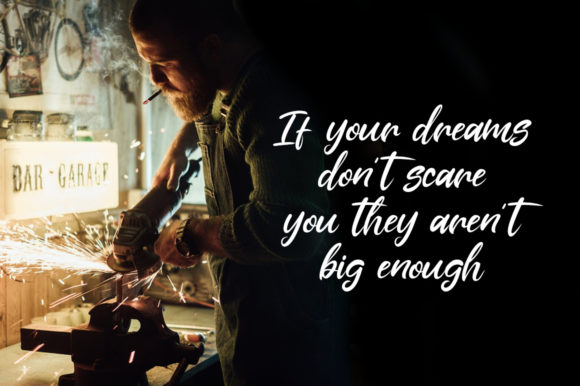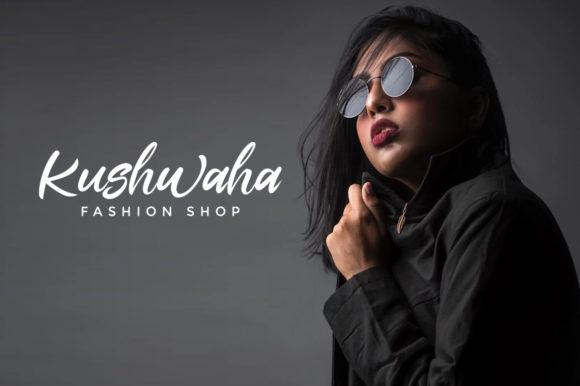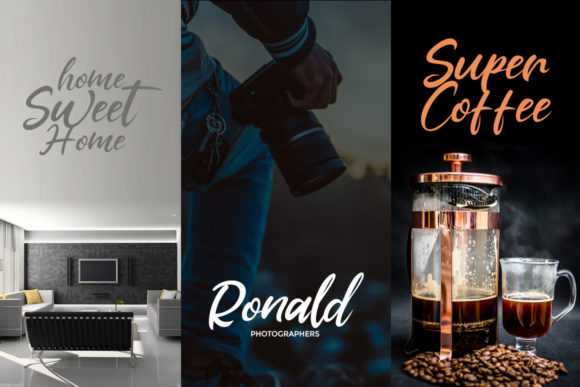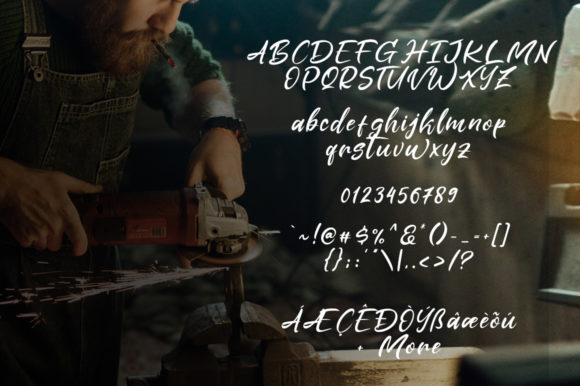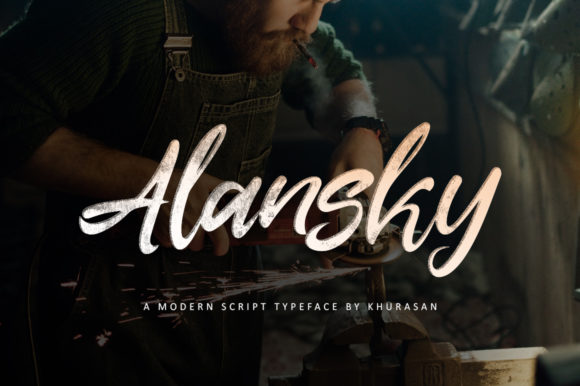
Introducing Alansky Font: A Modern Twist on Classic Calligraphy
Are you tired of using the same old fonts in your design projects? Look no further than Alansky Font, a modern homage to classic calligraphy that’s sure to add a unique and powerful touch to your work. With its authentic vibe and stunning visuals, Alansky Font is the perfect choice for designers and crafters looking to elevate their designs and stand out from the crowd.
The Inspiration Behind Alansky Font
Alansky Font is a carefully crafted typeface that draws inspiration from the classic calligraphy of the past. Its creator, a skilled typographer, sought to bring back the elegance and sophistication of traditional calligraphy while infusing it with a modern twist. The result is a font that’s both nostalgic and cutting-edge, perfect for designers who want to add a touch of classic charm to their work.
What Makes Alansky Font So Special?
So, what sets Alansky Font apart from other fonts on the market? Here are just a few of its standout features:
- Unique and Powerful: Alansky Font boasts a distinctive style that’s both bold and elegant. Its unique letterforms and flowing lines make it perfect for headlines, titles, and other design elements where you want to make a statement.
- Authentic Vibe: Alansky Font is designed to evoke the feeling of classic calligraphy, with a warm and inviting tone that’s perfect for creating a sense of nostalgia or sophistication.
- Versatile: Whether you’re working on a logo, brochure, or website, Alansky Font is versatile enough to fit any design project. Its clean lines and elegant curves make it suitable for a wide range of applications.
How to Use Alansky Font in Your Design Projects
Ready to give Alansky Font a try? Here are a few tips for incorporating it into your design projects:
- Headlines and Titles: Use Alansky Font to create eye-catching headlines and titles that grab attention and add a touch of elegance to your design.
- Logos and Branding: Alansky Font is perfect for creating unique and memorable logos that reflect your brand’s personality and style.
- Invitations and Announcements: Add a touch of sophistication to your invitations and announcements with Alansky Font’s elegant and refined style.
Why Designers and Crafters Love Alansky Font
Alansky Font has quickly become a favorite among designers and crafters, and it’s easy to see why. Here are just a few reasons why:
- Easy to Read: Despite its elegant style, Alansky Font is surprisingly easy to read, making it perfect for body text as well as headlines.
- Highly Versatile: Alansky Font can be used in a wide range of design projects, from logos and brochures to websites and social media graphics.
- Unique and Memorable: With its distinctive style and elegant curves, Alansky Font is sure to make your design stand out from the crowd.
In conclusion, Alansky Font is a modern homage to classic calligraphy that’s sure to add a unique and powerful touch to your design projects. With its authentic vibe, stunning visuals, and versatility, it’s the perfect choice for designers and crafters looking to elevate their designs and stand out from the crowd. So why wait? Give Alansky Font a try today and see the difference it can make in your work!